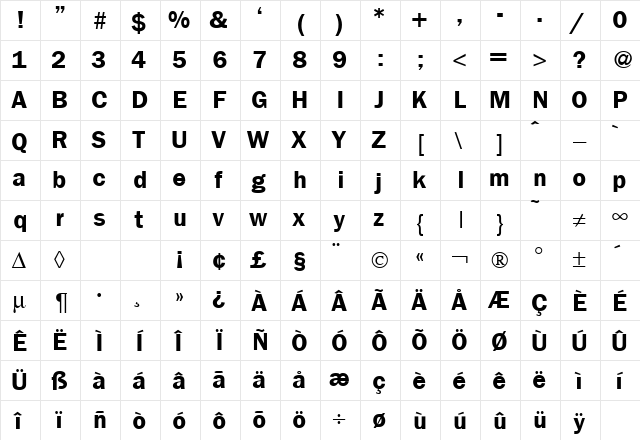
FranklinGothicNew Bold Font Preview
FranklinGothicNew Bold
Design Context for FranklinGothicNew Typeface
FranklinGothicNew has the quiet confidence of well-executed sans-serif typography: versatile, unobtrusive, and dependable at any size. Its bold stroke weight gives it real presence on the page.
Well-suited to navigation labels, product packaging, and anywhere legibility at scale is essential.
Font Pairing: Use FranklinGothicNew for headlines alongside a lighter-weight sans or serif for body copy to establish clear visual hierarchy.
Pro Tip: Use FranklinGothicNew for UI labels, navigation, and short-form body copy where clean legibility is the priority.